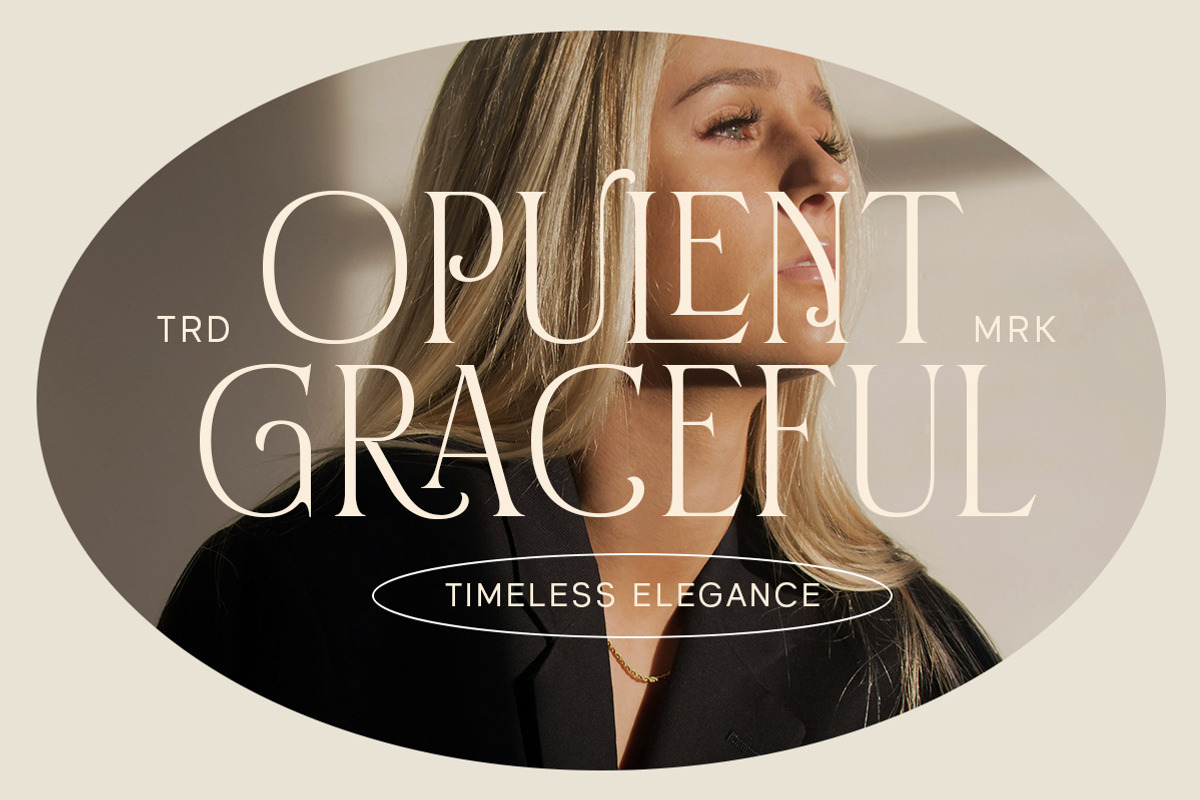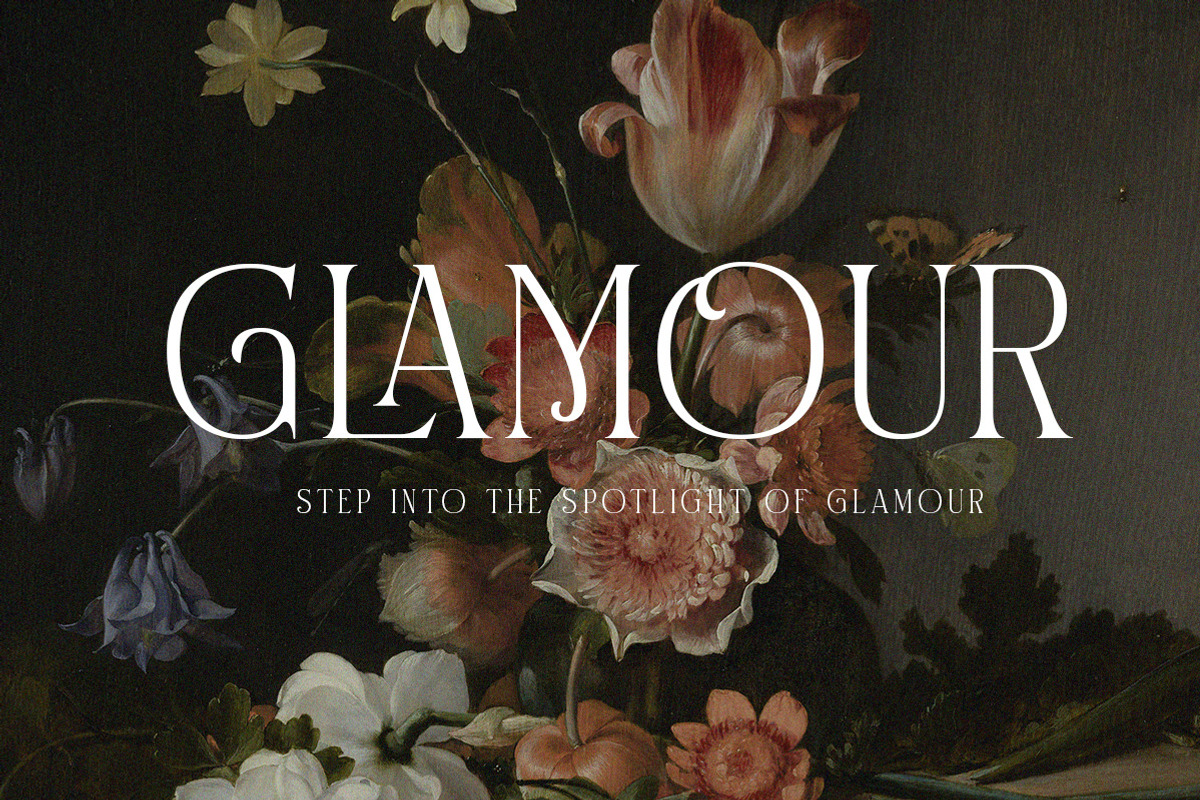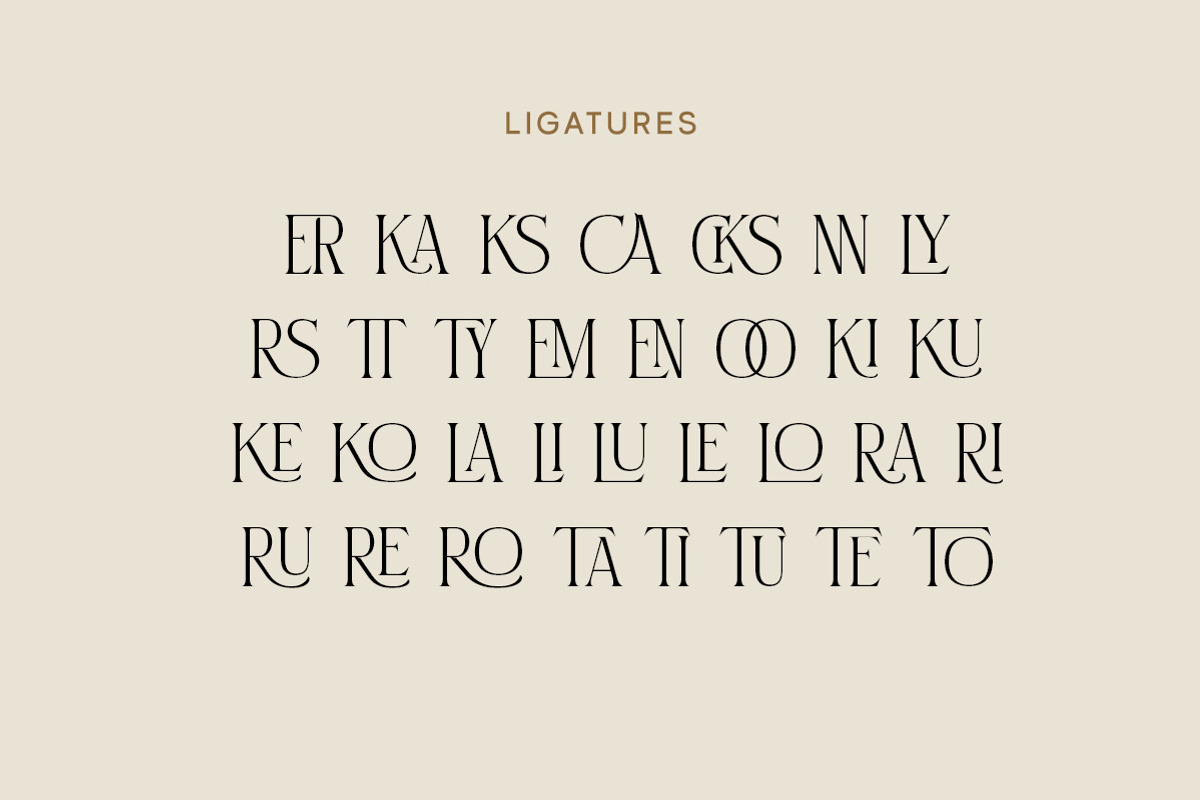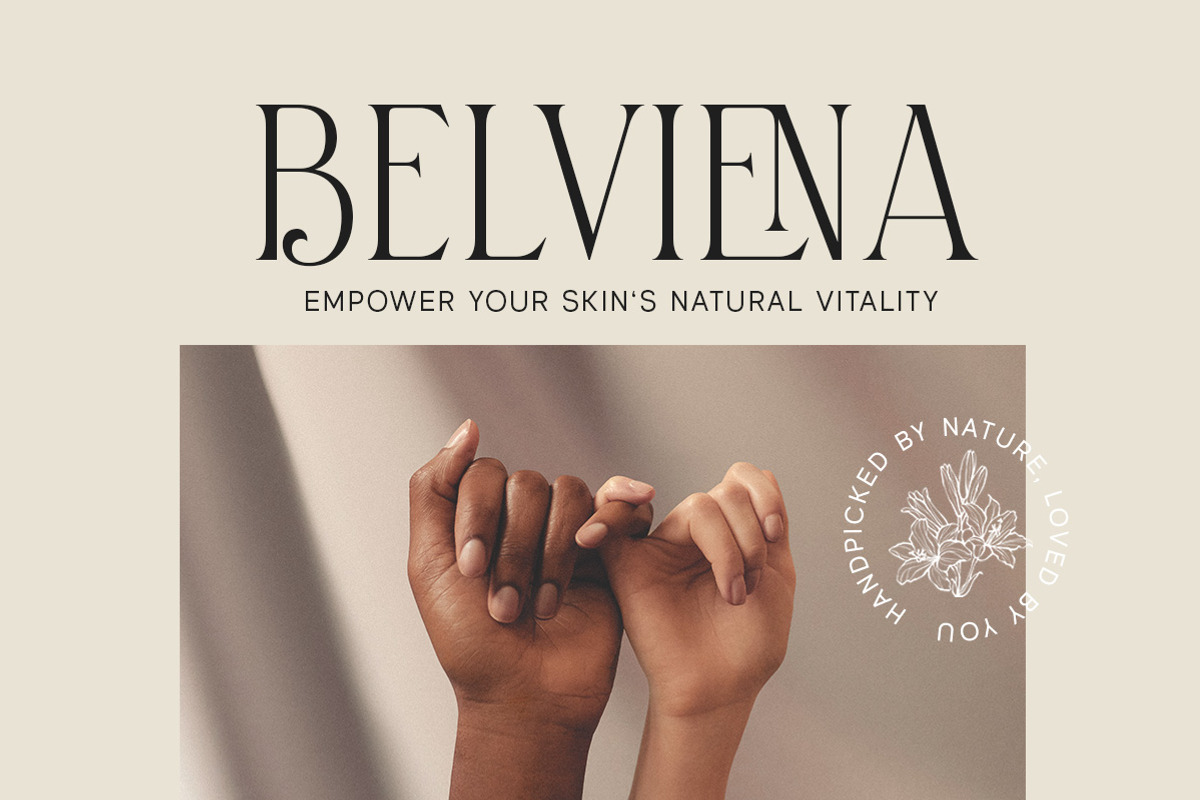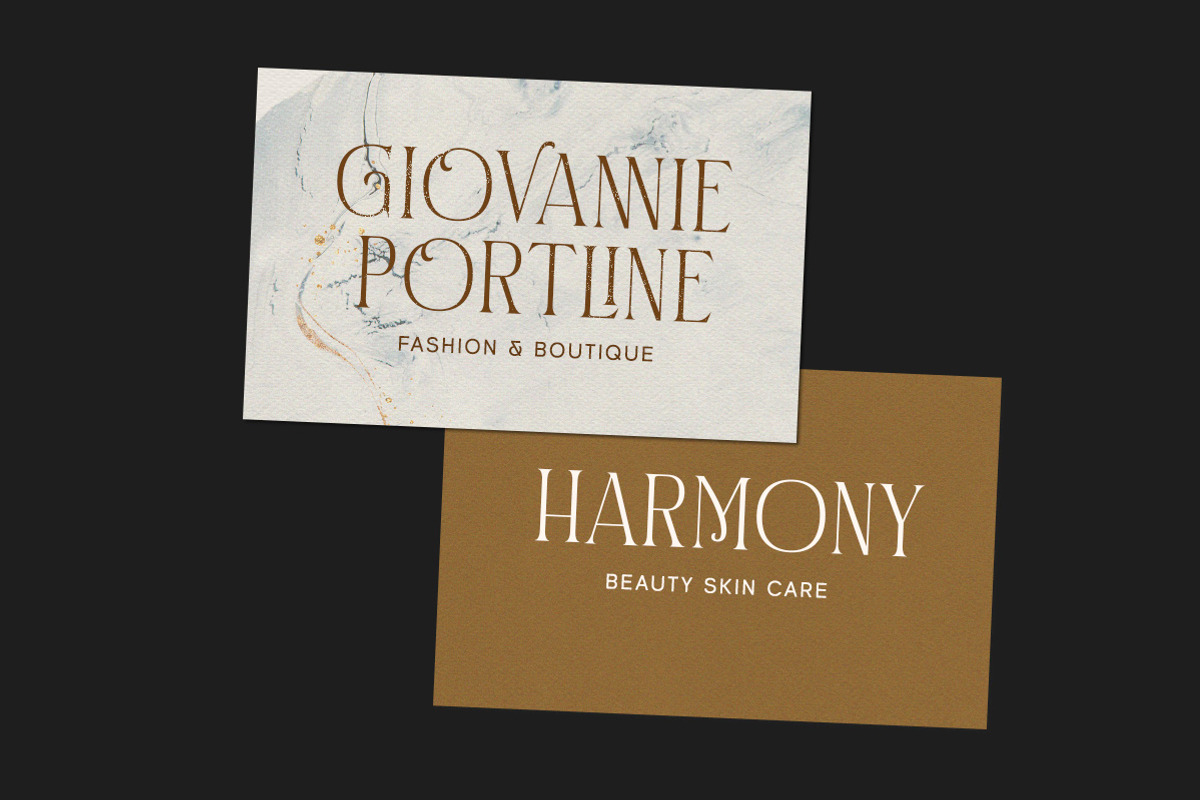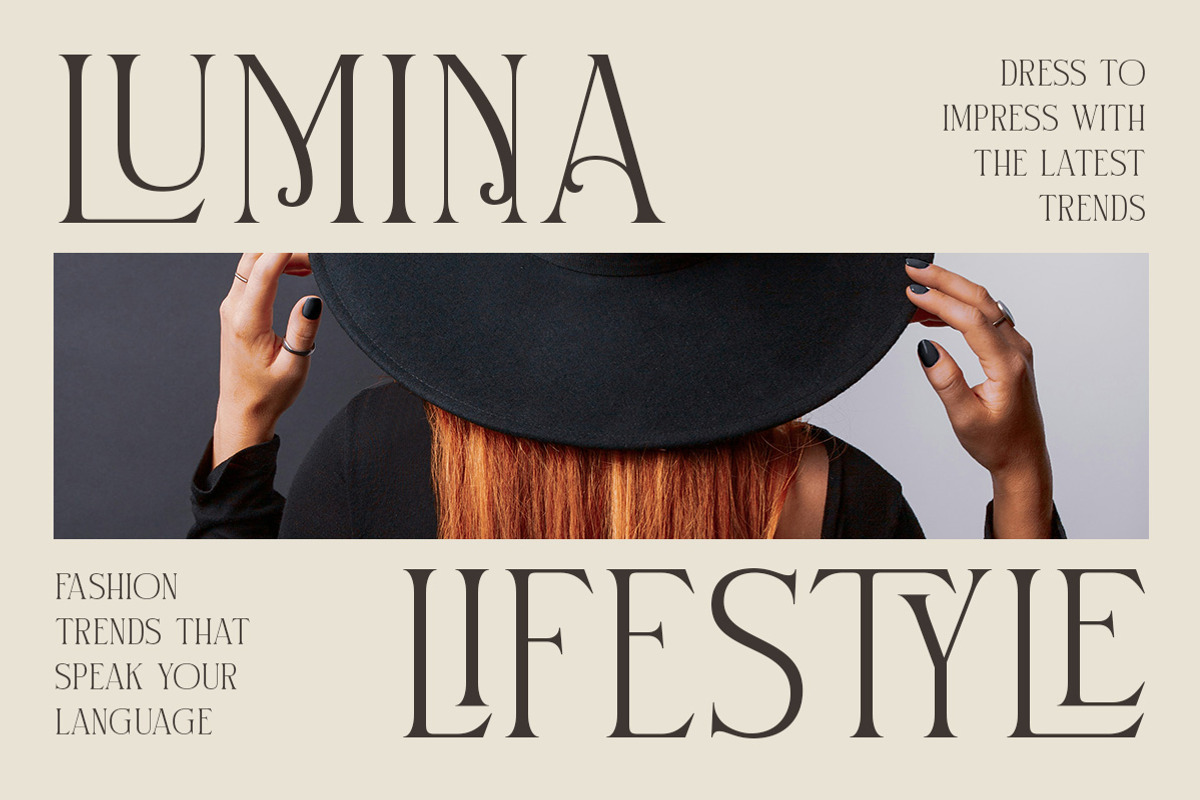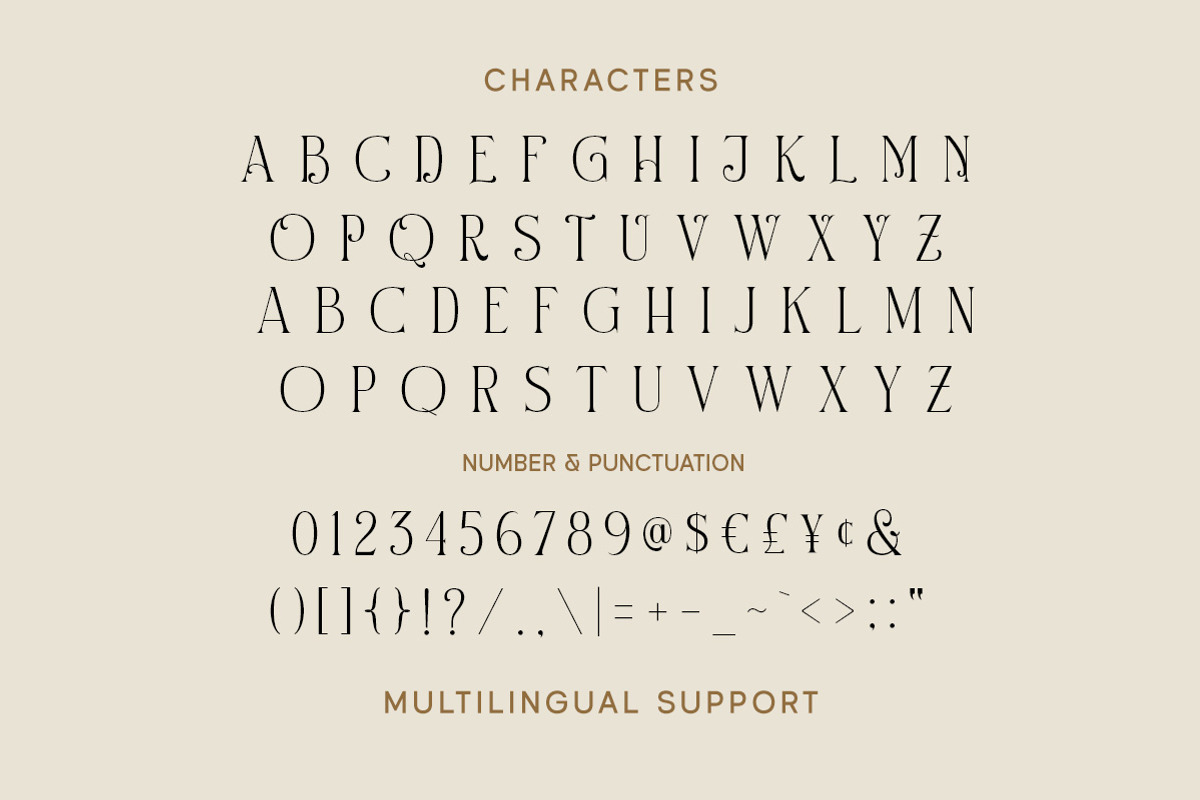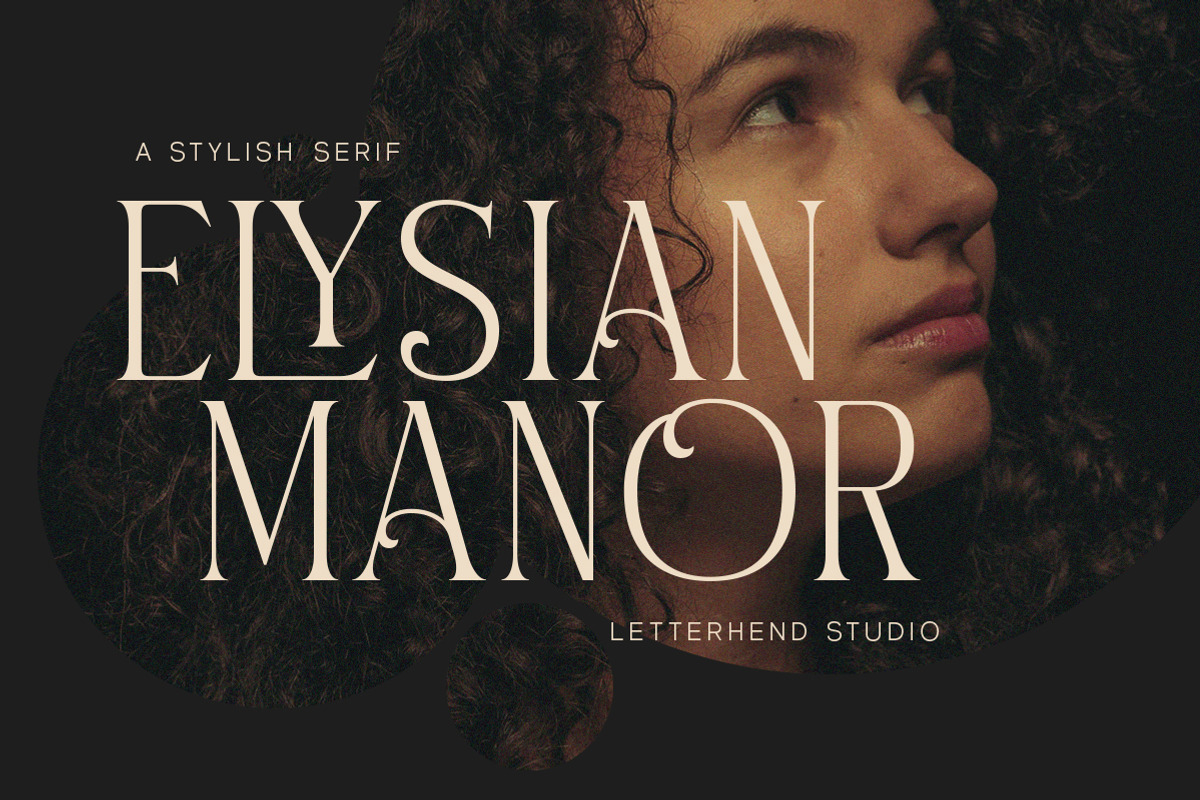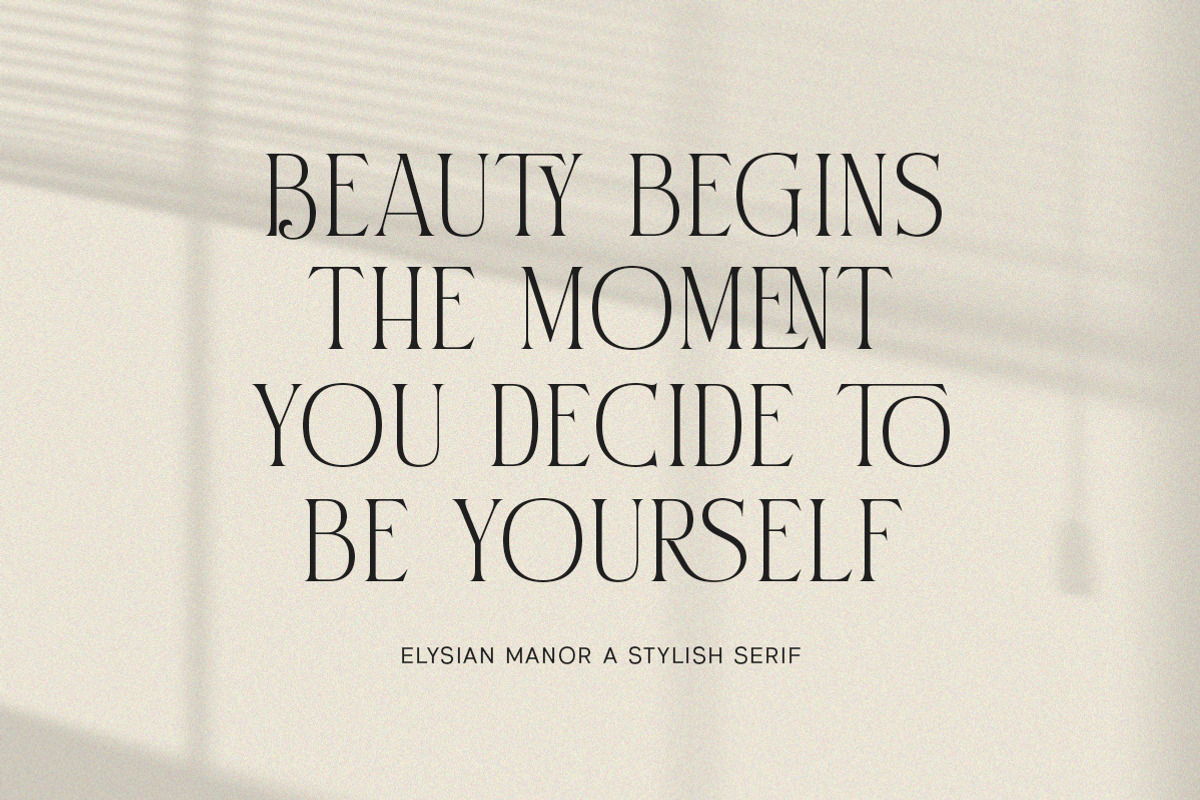
Elysian Manor - Stylish Serif
Introducing, Elysian Manor- A stylish ligature serif. This typeface has been made carefully to make sure its premium quality and luxury feel. The ligatures makes this typeface unique and stands out rather than the regular serif font, very suitable for logo, headline, tittle, and the other various formal forms such as invitations, labels, logos, magazines, books, greeting / wedding cards, packaging, fashion, make up, stationery, novels, labels or any type of advertising purpose.